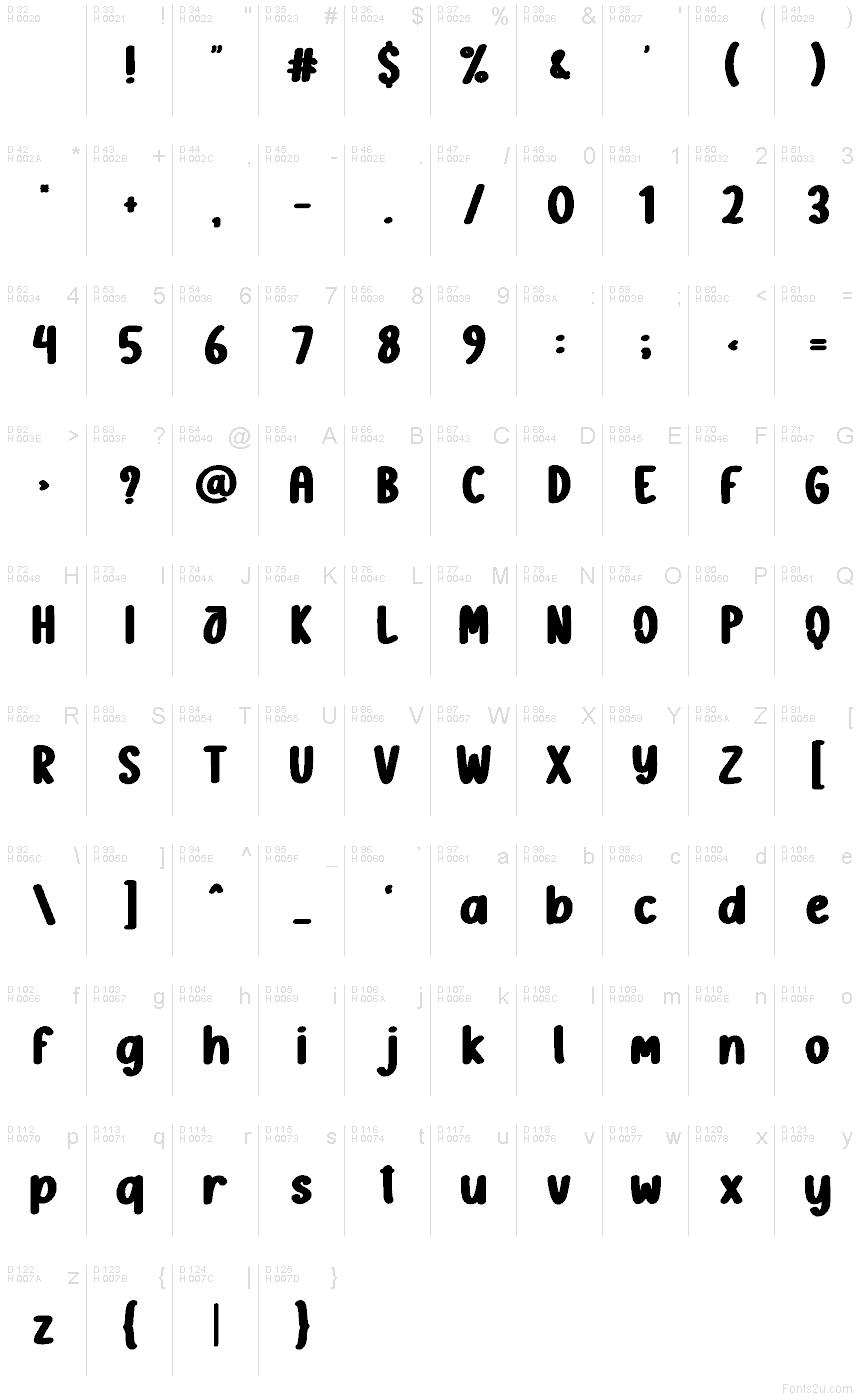
Clothes Christmas
Clothes Christmas font by Scratchones is a free brush font that mixes a contemporary style approach with the retro influence. It exhibits rounded forms in bold weight which come together to provide readable and versatile casual letters. Clothes Christmas enjoys a whimsical appeal within its design, making it suitable for any projects that require approachable writing.
An array of uses are stylistically covered if using this typeface on wedding invitations, branding work, business cards, posters, logos, packaging design of all kinds including food and beverage products. Subheadings in publications or delicate mediums like greeting cards should also be taken advantage of as well.